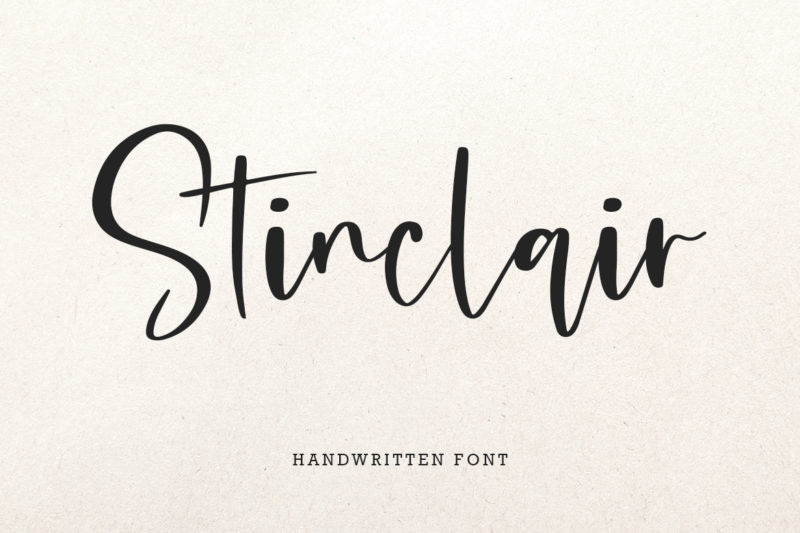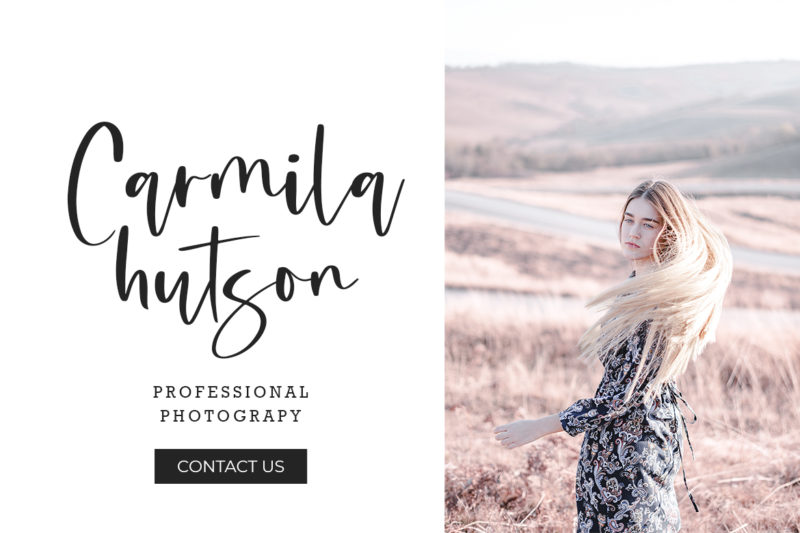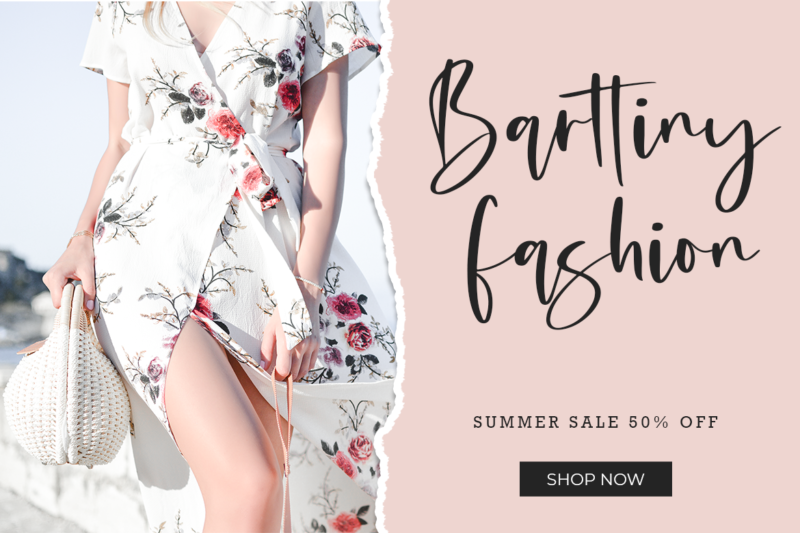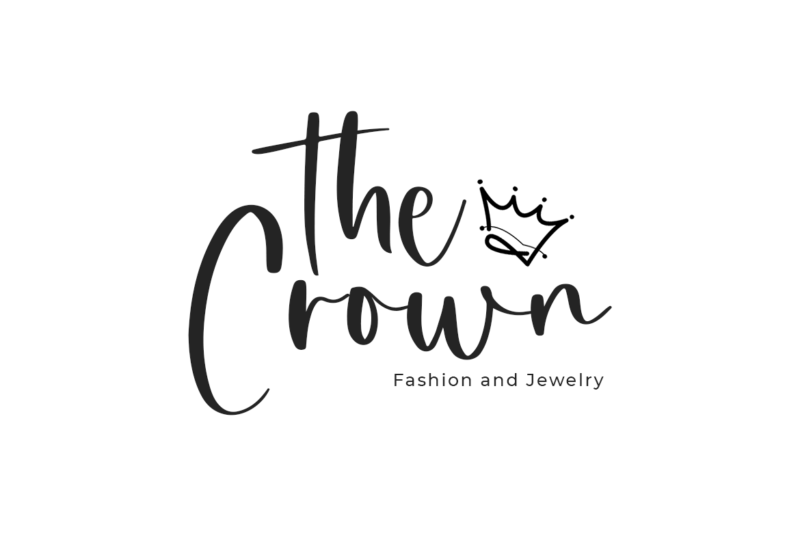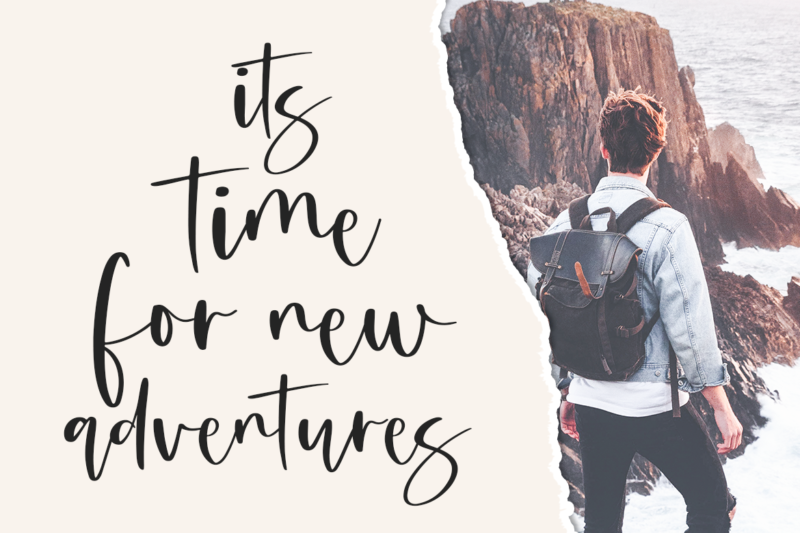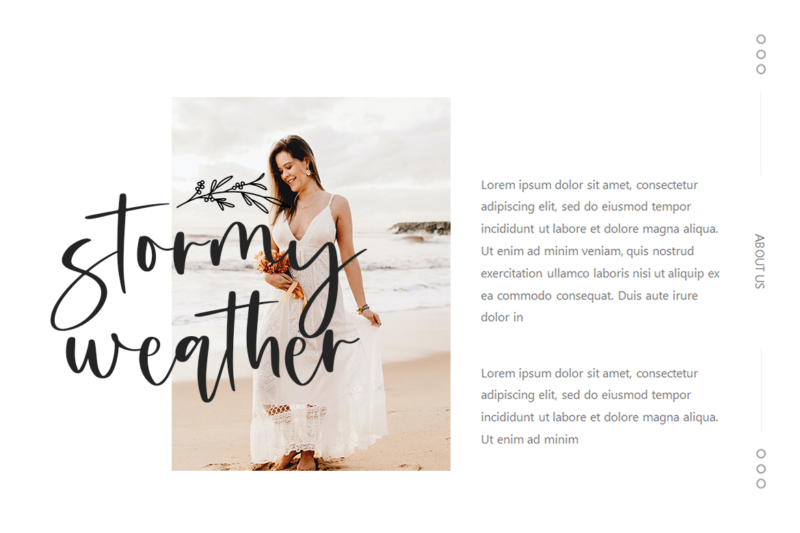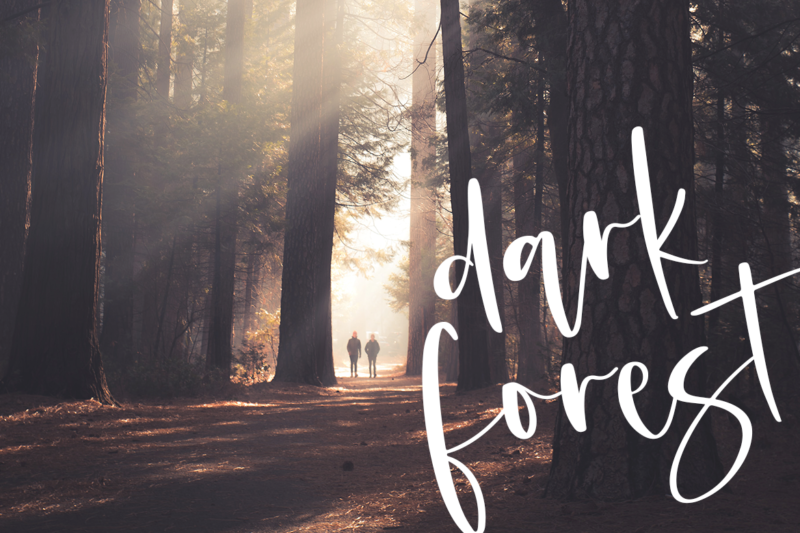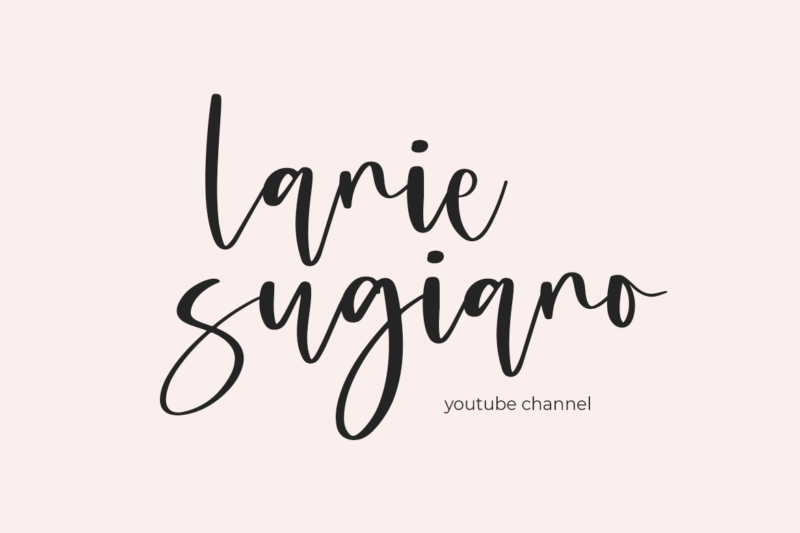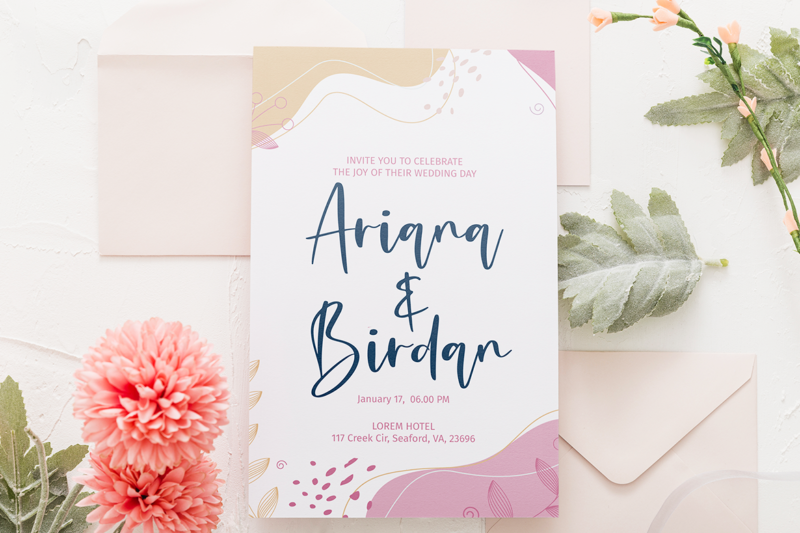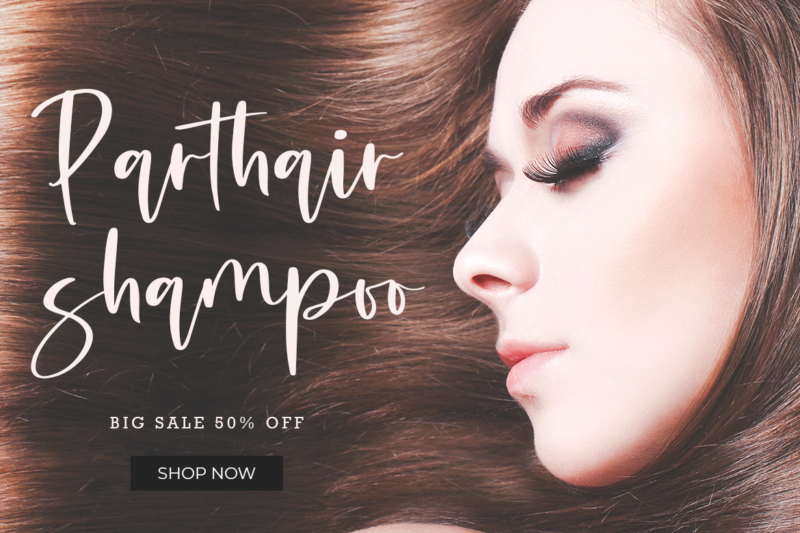
Stinclair Handwritten Font
Stinclair is an exciting handwritten font with signature style. This beautiful script can make your design project look elegant, classy, and modern.
Stinclair is perfect for branding projects, logo, wedding designs, social media posts, advertisements, product packaging, product designs, label, photography, watermark, invitation, stationery and any projects.